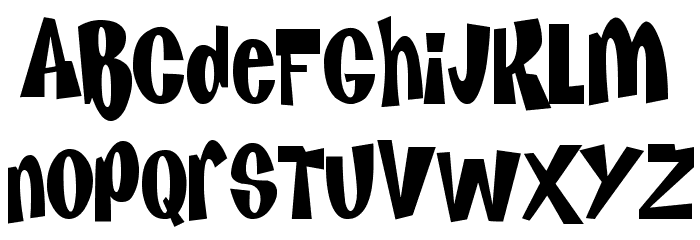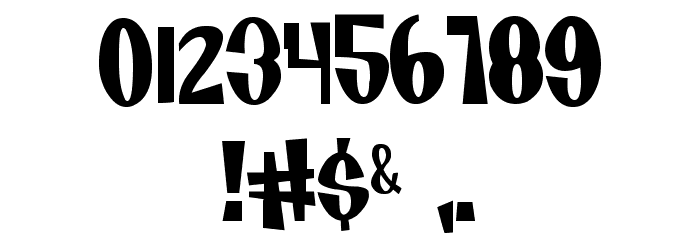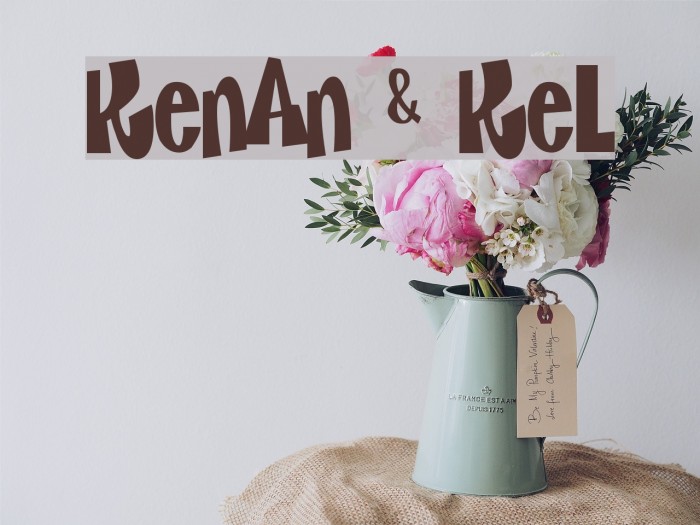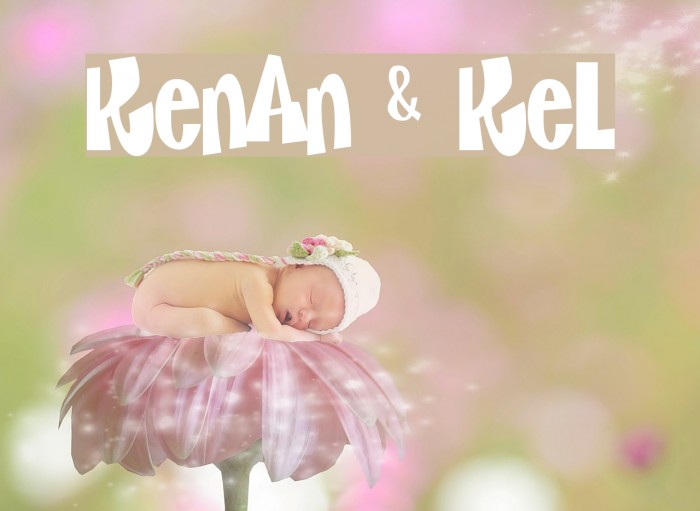
Kenan & Kel Font
This font features a playful and bold design with exaggerated curves and varying stroke widths, giving it a lively and dynamic appearance. The uppercase and lowercase letters are distinct, with some characters having unique, whimsical shapes that add to the font's charm. The numbers and special characters maintain the same playful style, making the font versatile for creative projects. Its boldness ensures high visibility, making it suitable for eye-catching designs.
A playful, bold font with exaggerated curves and whimsical shapes.
- Proposed Projects: Ideal for children's books, playful branding, event posters, and creative social media graphics.
- Overall Style: Playful